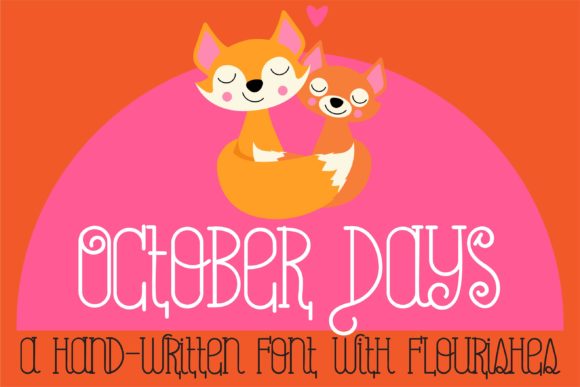
Behold, October Days Font - a script font family born from the vibrant canvas of autumn. Illustration Ink, the creative force behind this masterpiece, has woven a tapestry of warmth, charm, and elegance. October Days Font is the quintessential autumn font, ready to effortlessly elevate any fall craft to new heights of charm and sophistication.
Step into a world of captivating typography where every letter is a dance of russet hues, golden radiance, and crisp lines. October Days Font captures the essence of autumn's beauty, transforming words into art. Its intricate swirls and graceful curves add a touch of whimsy and romance, reminiscent of the season's enchanting spirit.
With October Days Font, you hold the key to unlocking limitless creative possibilities. Whether you're a seasoned designer or just starting your creative journey, this font will ignite your imagination. It's perfect for crafting heartfelt invitations, adding a touch of rustic charm to wedding stationery, creating personalized home décor, or designing eye-catching social media posts that capture the magic of fall.
October Days Font isn't merely a font; it's an invitation to embark on a sensory journey. Its autumnal hues evoke the crispness of fallen leaves underfoot, the warmth of a cozy fireside, and the sweet aroma of pumpkin spice. It's a font that speaks to the heart, stirring emotions and evoking memories of golden afternoons spent amidst the splendor of autumn.
Join the chorus of creative minds who have embraced October Days Font and witnessed the transformation it brings to their work. Let its autumnal charm breathe life into your designs, captivating your audience and leaving a lasting impression.
With October Days Font, you'll unlock a world of creative opportunities, turning ordinary words into extraordinary works of art. It's the perfect companion for capturing the essence of fall, adding a touch of warmth and sophistication to any project.